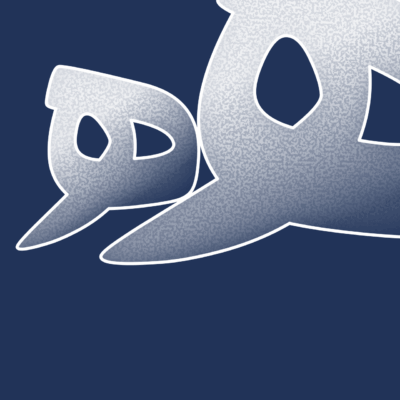
Liana
13 weights + 2 Styles
Liana font is a simple sans-serif typeface with a soft, organic structure that closely resembles handwriting. Its fluid forms give Liana an intimate and informal tone. Additionally, Liana has an approximate 6.5-degree slant, which imparts a sense of movement and dynamism to the text.
Liana is designed in two styles: the main Sans style offers nine weights, while the Soft style features four weights. The Sans version is optimized for text-based applications, whereas the Soft version is designed for display purposes at larger sizes.
Designed By
Amin Abedi
Type Designer
type designer and founder of the Fontamin website.